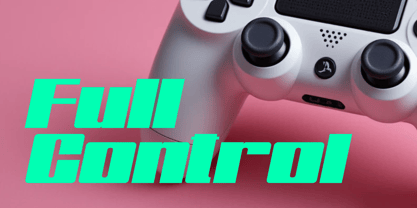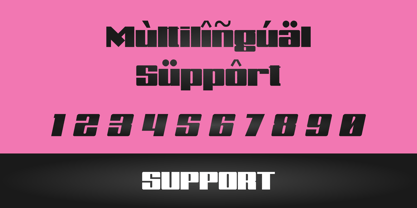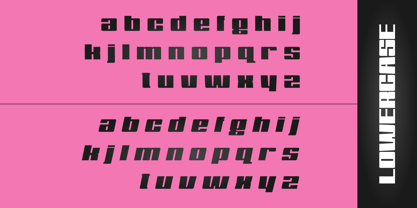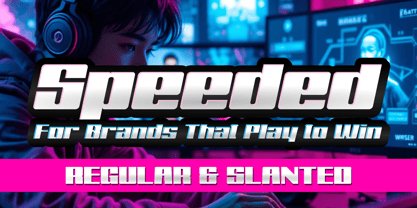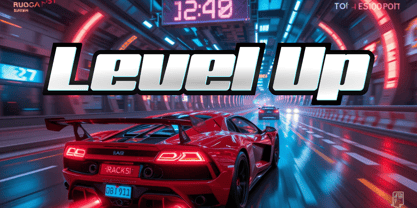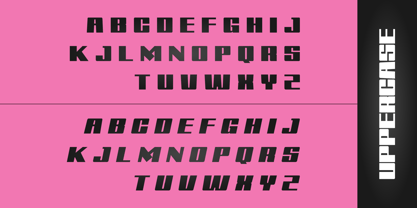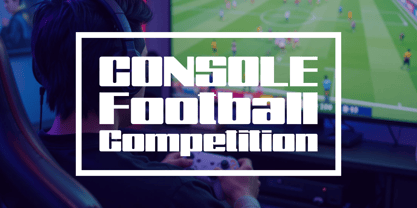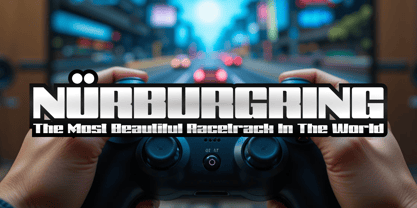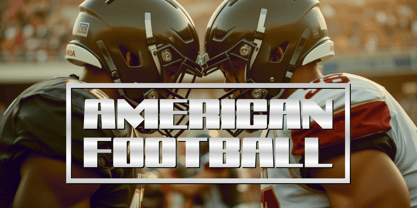
Speeded
by Raditya Type
The Speeded Font Family was designed by Raditya Putra Pratama and published by Raditya Type. Speeded contains 2 styles and family package options. More about this family
"Speeded" is a bold and dynamic typeface engineered for the fast-paced worlds of gaming, racing, and competitive sports.
With two powerful variants — Regular and Slanted — Level Up gives you the flexibility to create branding that feels grounded or in motion.
The Regular style stands strong, perfect for commanding attention in logos, titles, and gear branding.
The Slanted style leans forward with energy and speed, ideal for racing events, esports visuals, and high-adrenaline promotions.
Every letterform is sculpted to evoke momentum, intensity, and futuristic power — delivering immediate visual impact for audiences who live for the thrill.
Key Features:
⚡ Two dynamic styles: Regular and Slanted
🏎️ Aerodynamic letterforms with strong lines and sharp angles
🕹️ Optimized for gaming titles, esports logos, sportswear branding, and digital displays
🎯 High legibility at any size — perfect for fast-moving visuals
🚀 Crafted to ignite passion and performance in every project
Perfect For:
Game UI Titles & Loading Screens
Esports Team Branding & Jerseys
Motorsports Promotions
Athletic Gear Packaging
Futuristic Technology Branding
Sports Event Advertising
Speeded isn’t just a font.
It’s a call to action.
It’s your new edge
Designers: Raditya Putra Pratama
Foundry: Raditya Type